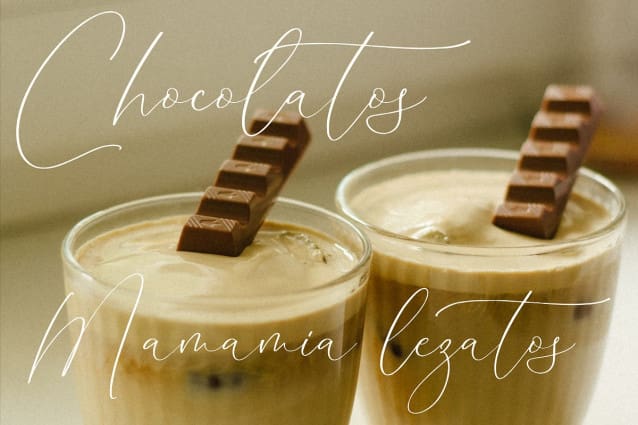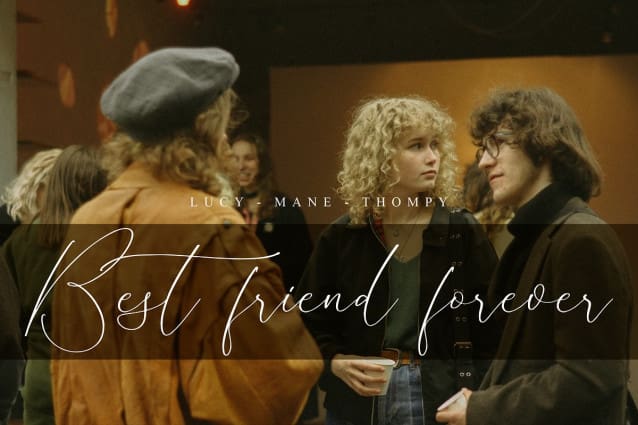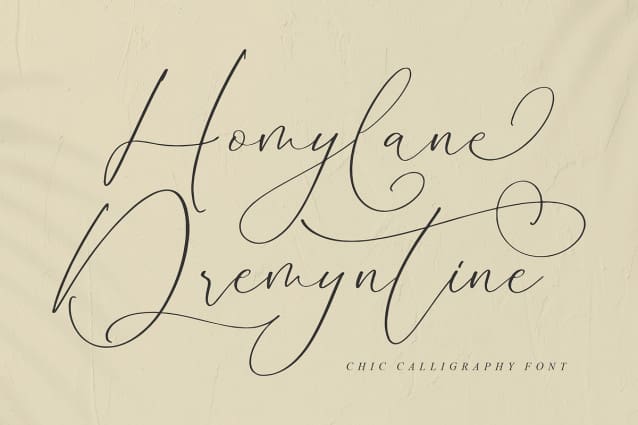
Homylane Dremyntine Font
Homylane Dremyntine Font – Chic Calligraphy , created by Storytype, A luxury script that has own unique style & modern look. This typeface is perfect for an elegant & luxury logo, book or movie title design, fashion brand, magazine, clothes, lettering, quotes, and so much more.